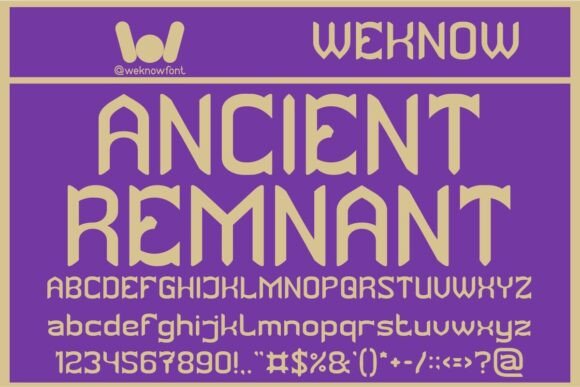
Unleash the Elegance of the Ancient Remnant Font
I’ll never forget the design project that led me to discover the Ancient Remnant font. I was working on a logo for a historical fiction novel, and I needed a font that would transport readers to a bygone era. After hours of scouring font libraries, I stumbled upon Ancient Remnant, and it was love at first sight. The rugged beauty of Gothic architecture, the regal poise of a modern knight king, and the charming allure of a warrior’s kingdom – it was all there, in one stunning font.
So, what makes Ancient Remnant so special? Here are a few things that I adore about this font:
• Unique character: Ancient Remnant has a distinct personality that sets it apart from other fonts.
• Versatility: This font is perfect for logos, logotypes, headlines, and even body text.
• Elegant and rugged: Ancient Remnant combines the best of both worlds – it’s both refined and rough around the edges.
Of course, no font is perfect, and Ancient Remnant has a few quirks:
• 🤔 Limited kerning options: While the font looks great at larger sizes, kerning can be a bit tricky at smaller sizes.
• ⚠️ Not ideal for body text: Ancient Remnant is best used for display text – it can be a bit too ornate for long blocks of text.
The Story Behind Ancient Remnant
Legend has it that Ancient Remnant was inspired by the grand architecture of medieval Europe. The font’s designer, a typography enthusiast, spent countless hours studying the intricate stone carvings and ornate lettering of ancient castles and churches. The result is a font that embodies the rugged beauty and noble elegance of a bygone era.
What is the best use for Ancient Remnant? Ancient Remnant is perfect for display text, logos, logotypes, and headlines.
Is Ancient Remnant suitable for body text? While it’s possible to use Ancient Remnant for body text, it’s best suited for display text due to its ornate nature.
Does Ancient Remnant support OpenType features? Yes, Ancient Remnant supports OpenType features like ligatures, stylistic alternates, and glyphs.